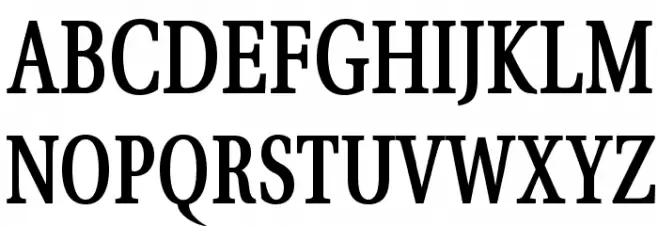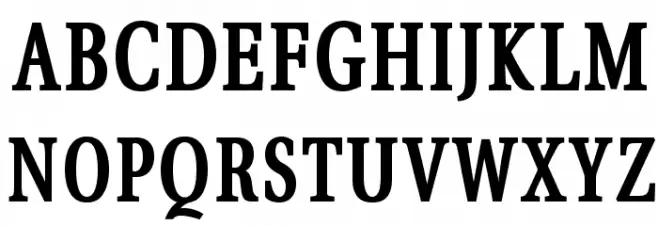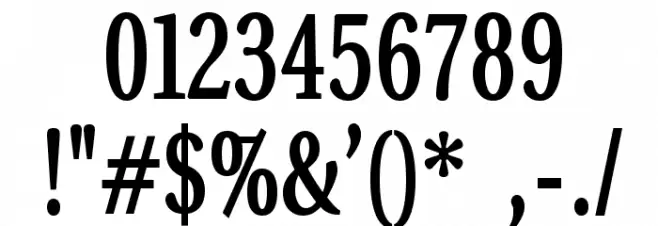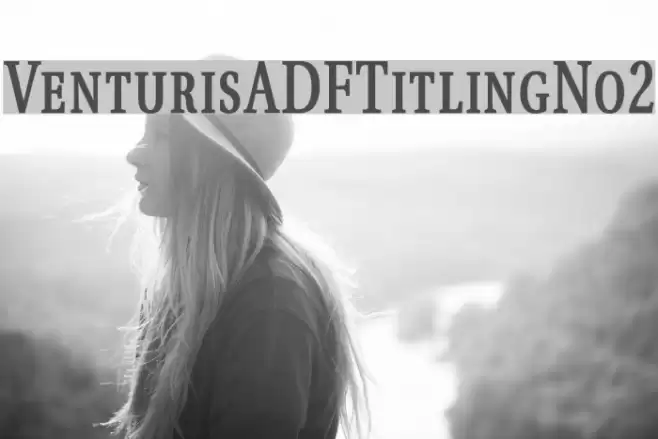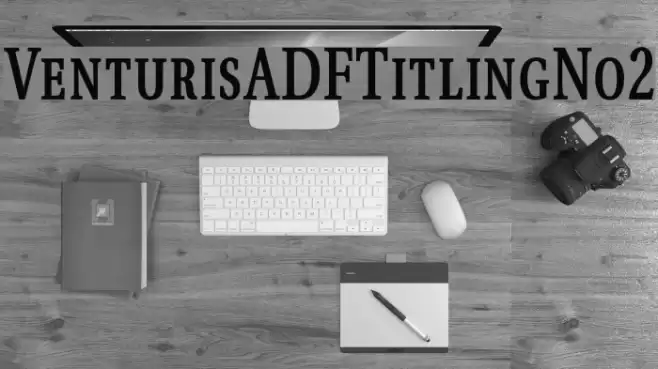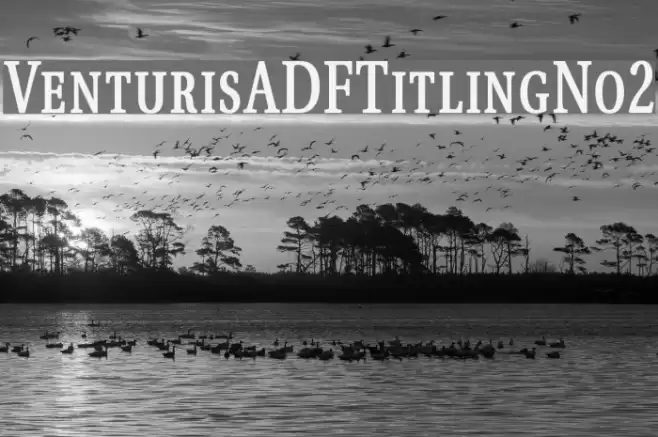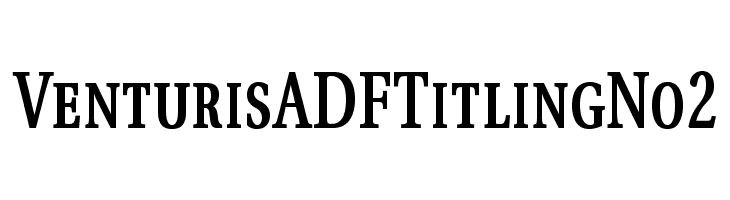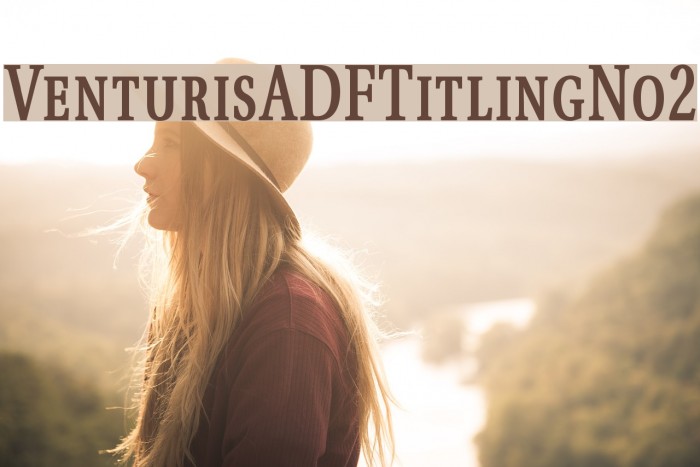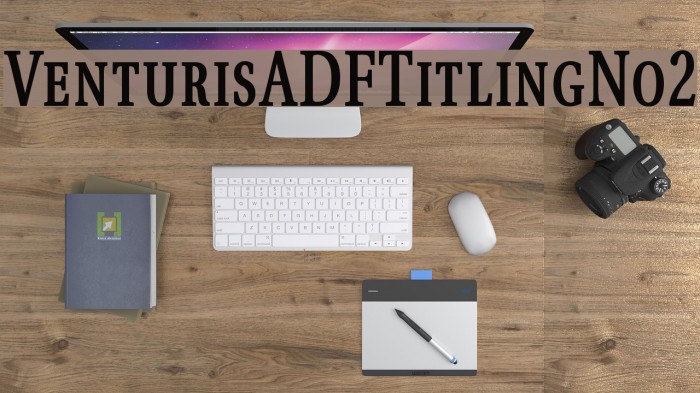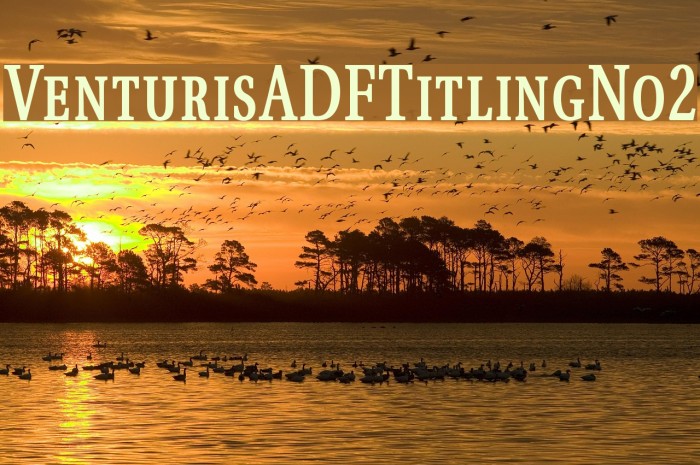
VenturisADFTitlingNo2
This font exhibits a classic serif style with strong, bold strokes and high contrast between thick and thin lines. The serifs are pronounced and slightly curved, adding a touch of elegance and sophistication. The uppercase letters are tall and commanding, while the lowercase letters maintain a consistent height, ensuring readability. The numerals are clear and distinct, making them suitable for both formal and decorative purposes. Special characters are well-defined, maintaining the font's overall aesthetic. This typeface is versatile, suitable for a range of applications from headlines to formal invitations.
A classic serif font with bold strokes and high contrast, ideal for elegant and formal designs.
- Proposed Projects: Ideal for book covers, formal invitations, branding, and editorial design.
- Category: Serif
- Contrast: High
- Overall Style: Classic
- Use Case: Headlines, Logos, Formal Invitations